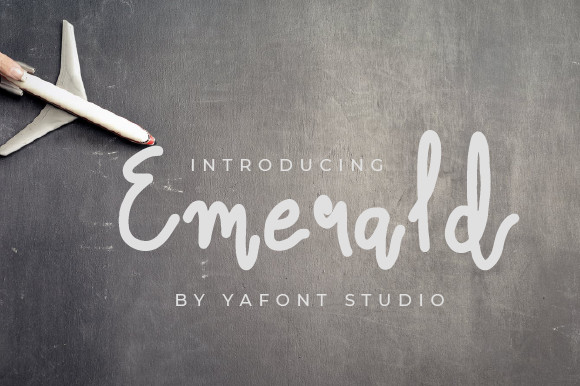
Emerald Font
About Emerald Font
Emerald is a neat and elegant handwritten font. Not too thin and not too thick, balanced and varied, this font was designed to enhance the beauty of your projects.